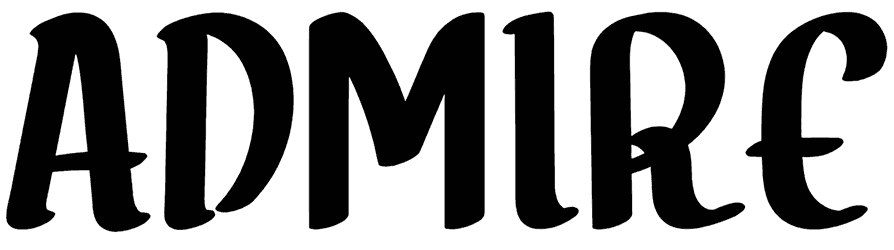
Admire Font
Never hesitate to select a lovely script font, the same as the Admire that comes with a sense of personalization, love, joy, or tenderness. Since this masterpiece comes with bold letters, it can boost the efficiency of your content, such as illustrations, storybook covers, product packaging, billboards, or branding projects.